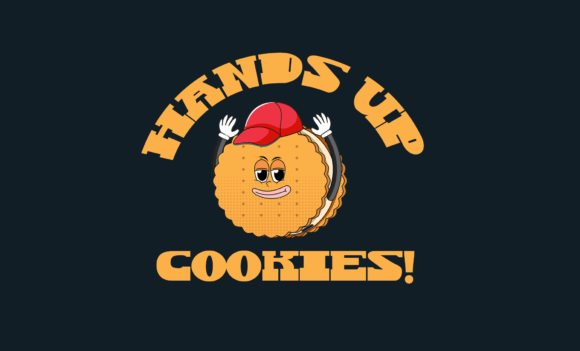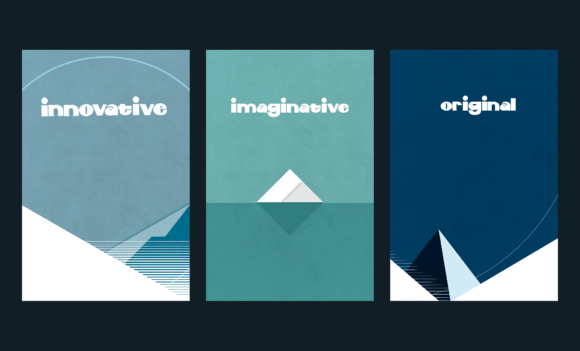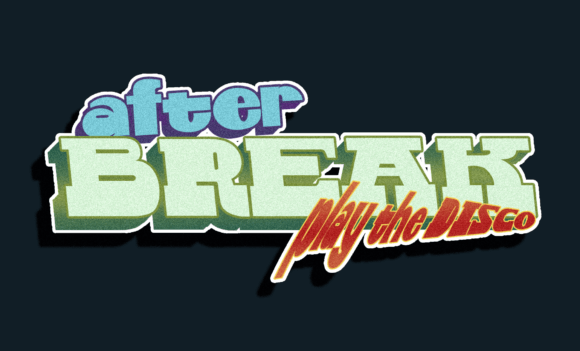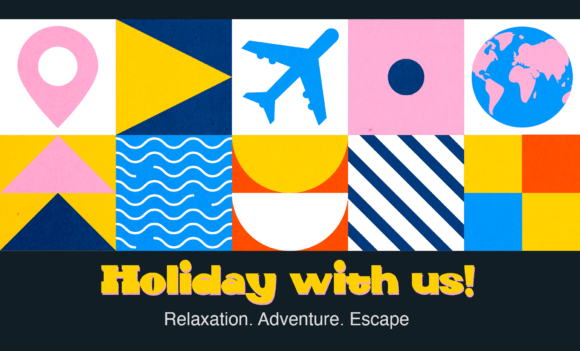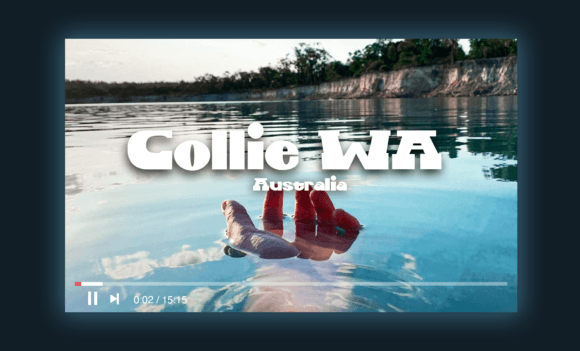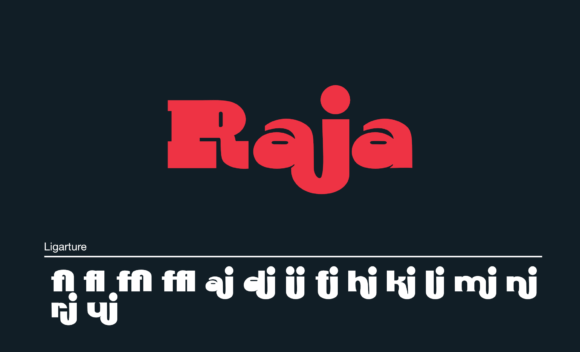
Introducing Balvins: The Ultimate Display Font for Modern Designers
In the world of design, fonts play a crucial role in conveying the message and aesthetic of a project. With so many font options available, it can be overwhelming to choose the perfect one. However, if you’re looking for a bold, elegant, and versatile display font, look no further than Balvins. Inspired by Swiss design and stylized font, Balvins is the perfect addition to any designer’s toolkit.
The Inspiration Behind Balvins
Balvins draws its inspiration from the classic Swiss design movement, known for its clean lines, simplicity, and functionality. This design philosophy is reflected in Balvins’ sleek and modern aesthetic, making it perfect for a wide range of design applications. The font’s stylized approach adds a touch of sophistication, setting it apart from more traditional display fonts.
The ’90s Vibe: A Nostalgic Twist
One of the standout features of Balvins is its distinctive ’90s vibe. This nostalgic twist adds a layer of depth and character to the font, making it perfect for designers looking to create bold and eye-catching designs. Whether you’re working on a retro-style poster or a modern brand identity, Balvins’ unique blend of old and new is sure to turn heads.
So, what can you do with Balvins? The possibilities are endless! This versatile display font is perfect for:
- Creating stunning posters that grab attention
- Designing thumbnails that stand out on social media
- Crafting movie titles that set the tone for a blockbuster
- Adding highlights and headers to your designs
- Developing a bold brand identity that leaves a lasting impression
Why Choose Balvins?
With so many display fonts on the market, why choose Balvins? Here are just a few reasons why Balvins stands out:
- Bold and Elegant: Balvins boasts a bold, elegant look that’s perfect for creating eye-catching designs.
- Versatile: Whether you’re working on a modern or retro-style project, Balvins adapts effortlessly.
- Nostalgic Twist: The font’s ’90s vibe adds a unique layer of character and depth.
- High-Quality: Balvins is a high-quality font designed with precision and attention to detail.
Tips for Using Balvins Effectively
To get the most out of Balvins, here are a few tips to keep in mind:
- Experiment with Sizes: Balvins looks great in large and small sizes, so don’t be afraid to experiment.
- Play with Colors: The font’s bold design makes it perfect for use with bright, bold colors.
- Mix and Match: Try pairing Balvins with other fonts to create a unique and eye-catching design.
| Author | Mofr24 Studio |
In conclusion, Balvins is the perfect display font for designers looking to create bold, eye-catching designs. With its unique blend of Swiss design inspiration, stylized aesthetic, and nostalgic ’90s vibe, Balvins is sure to leave a lasting impression. Whether you’re working on a poster, thumbnail, movie title, or brand identity, Balvins is the perfect choice. So why wait? Download Balvins today and take your designs to the next level!